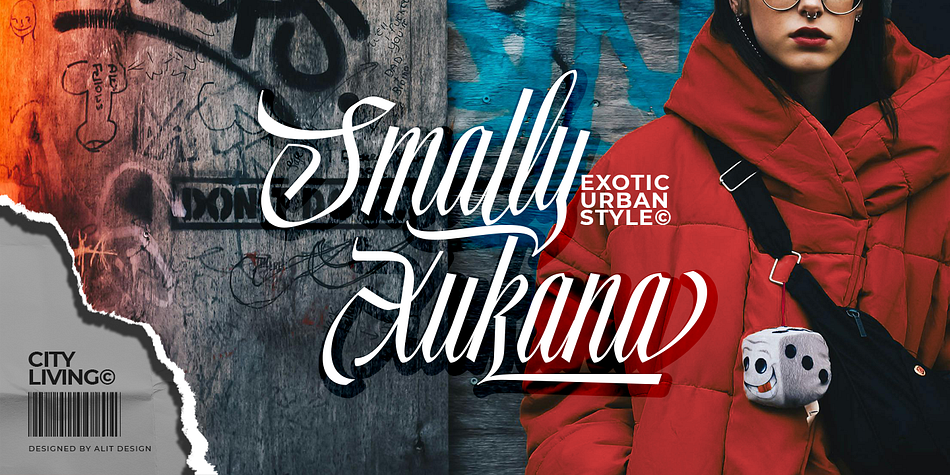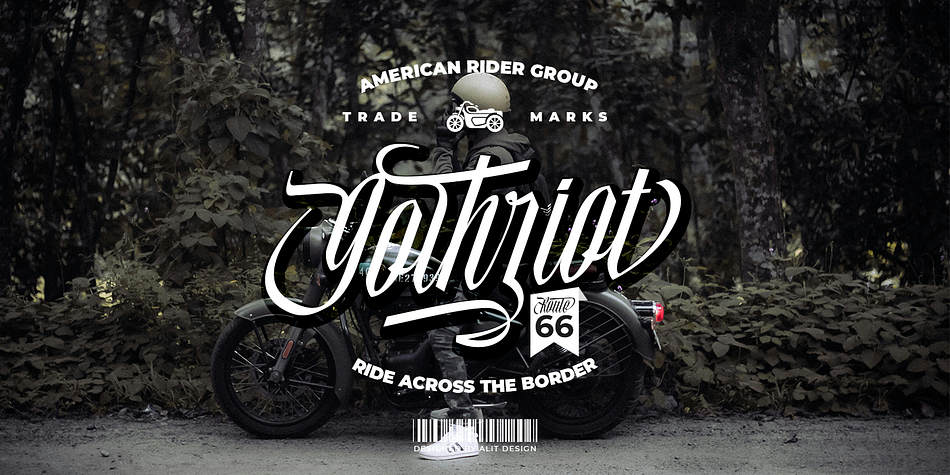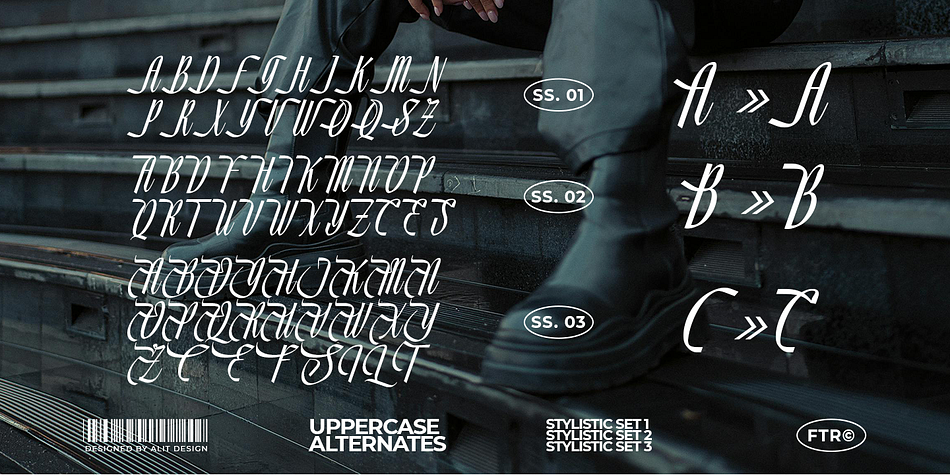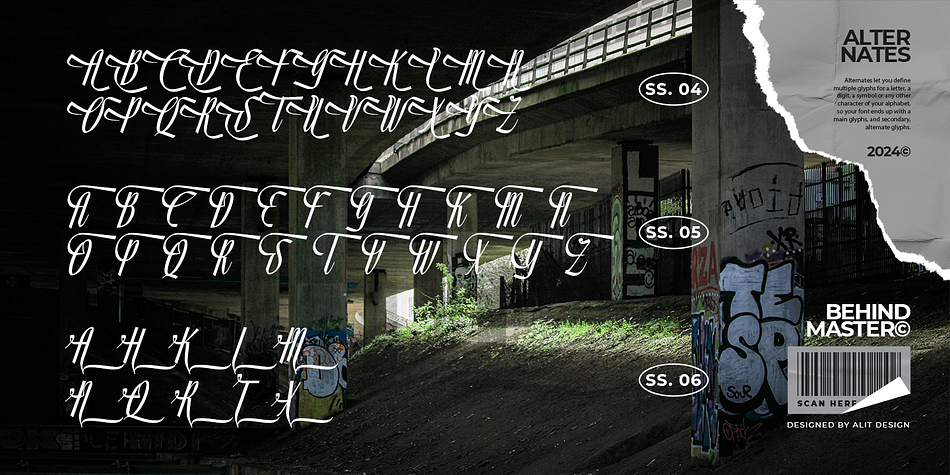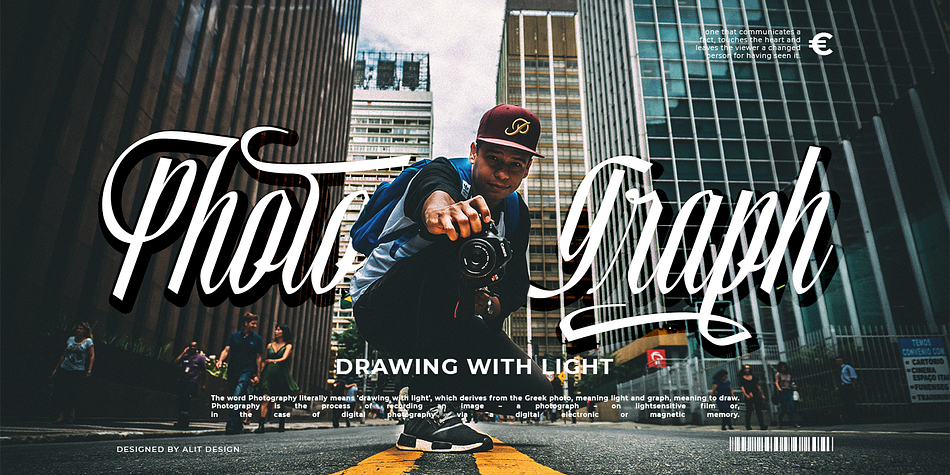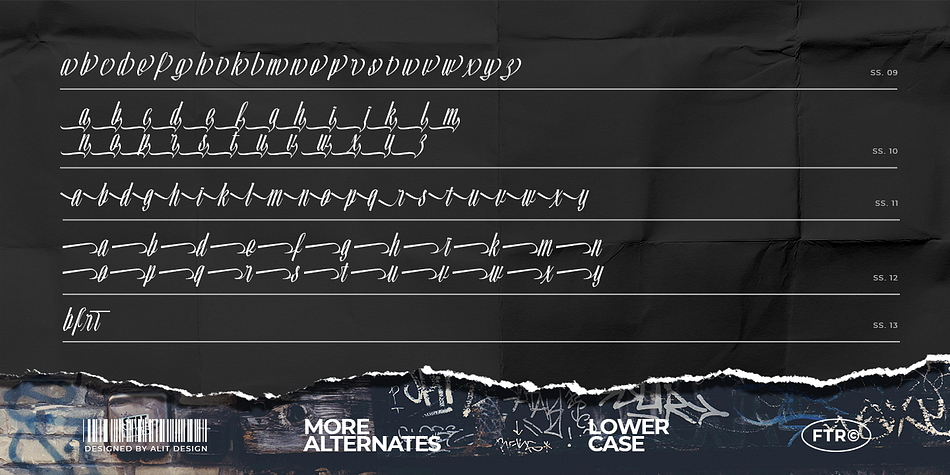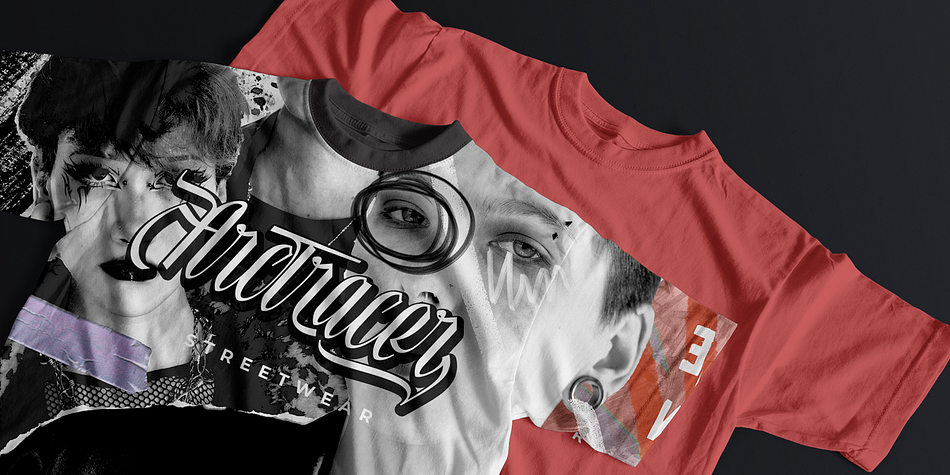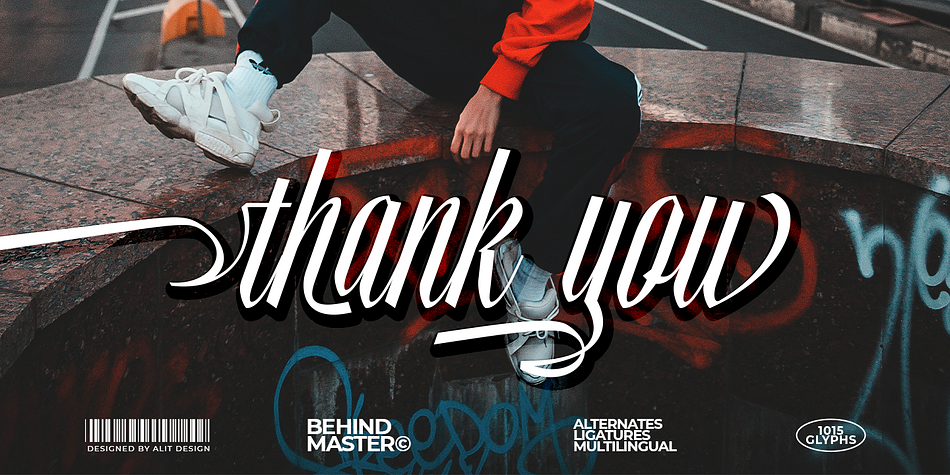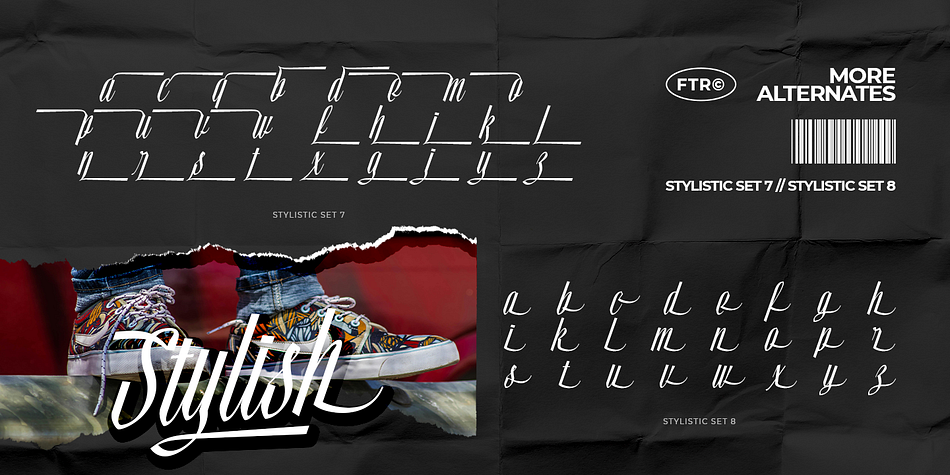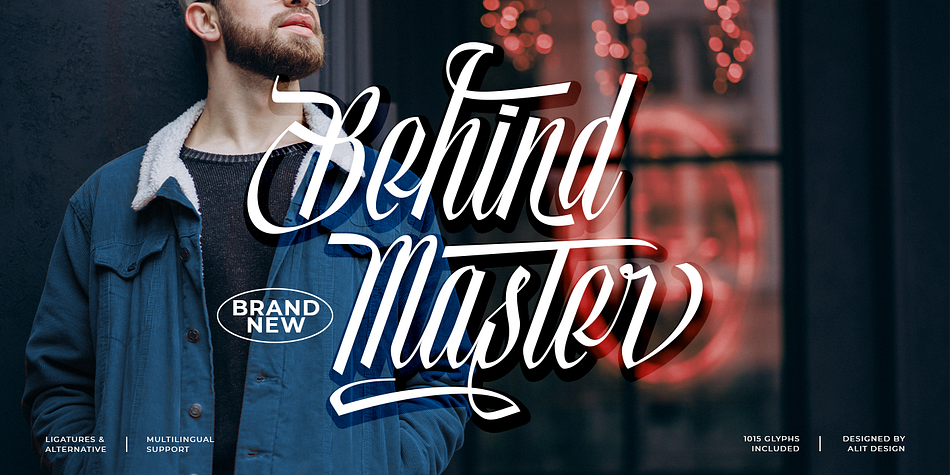
Behind Master
Designed by Alit Suarnegara, Behind Master is a modern calligraphy font family published by Alit Design.
Introducing: Behind Master Font
Unleash the power of creativity with Behind Master Font, a premium typeface designed to captivate and inspire. Whether you’re a designer, artist, or typographic enthusiast, this font offers a perfect blend of style and functionality.
Font Themes:
Fierce Script: Command attention with bold and striking strokes. The fierce script theme is perfect for headlines and statements that need to stand out.
Speedy: Capture the essence of motion and energy. The speedy theme adds a vibrant, dynamic touch to any project.
Dynamic: Bring your text to life with a font that moves and flows. The dynamic theme ensures versatility and visual interest.
Ligature: Enjoy seamless text with expertly designed ligatures. These connections create a harmonious and fluid reading experience.
Swash: Add an elegant flair with decorative swashes. These embellishments enhance the beauty and uniqueness of each character.
Behind Master Font boasts an impressive 1015 characters, providing extensive creative possibilities. From uppercase and lowercase letters to numerals, punctuation, and special characters, this font has everything you need for diverse applications.
Key Features:
Comprehensive character set to cover all your design needs.
Perfect for a variety of projects, including branding, posters, invitations, and social media.
Carefully crafted for readability and aesthetic excellence across different mediums.
Why Choose Behind Master Font?
Behind Master Font is more than just a typeface; it’s a tool to elevate your design work. Its blend of fierce script, speedy dynamics, and elegant swashes makes it a versatile choice for any project. Whether you’re looking to create bold headlines, stylish logos, or elegant invitations, this font has you covered.